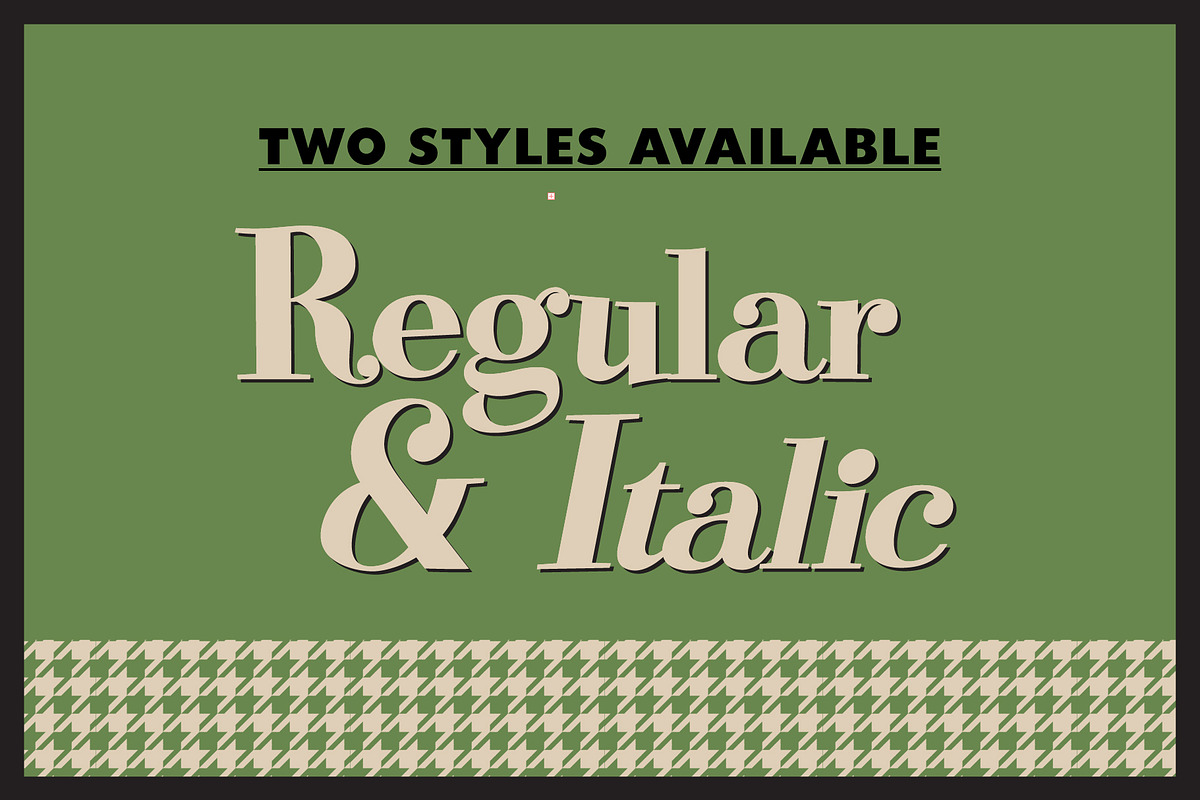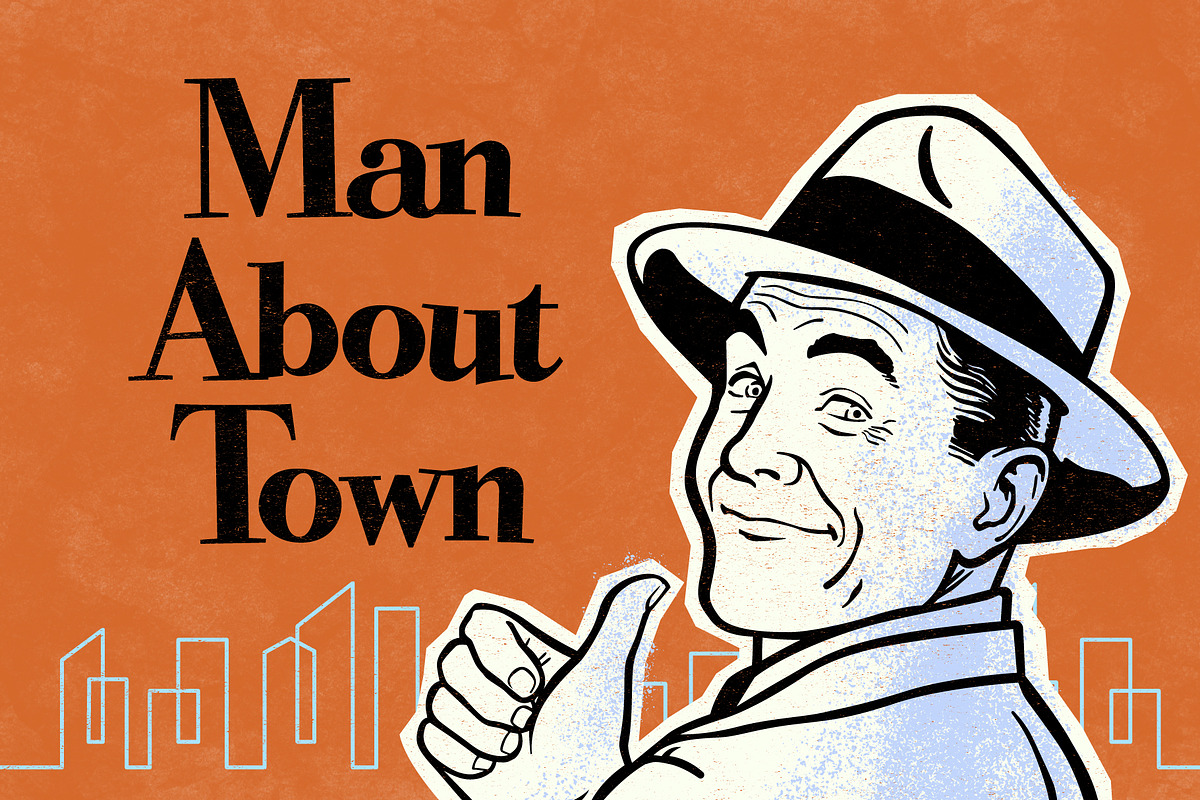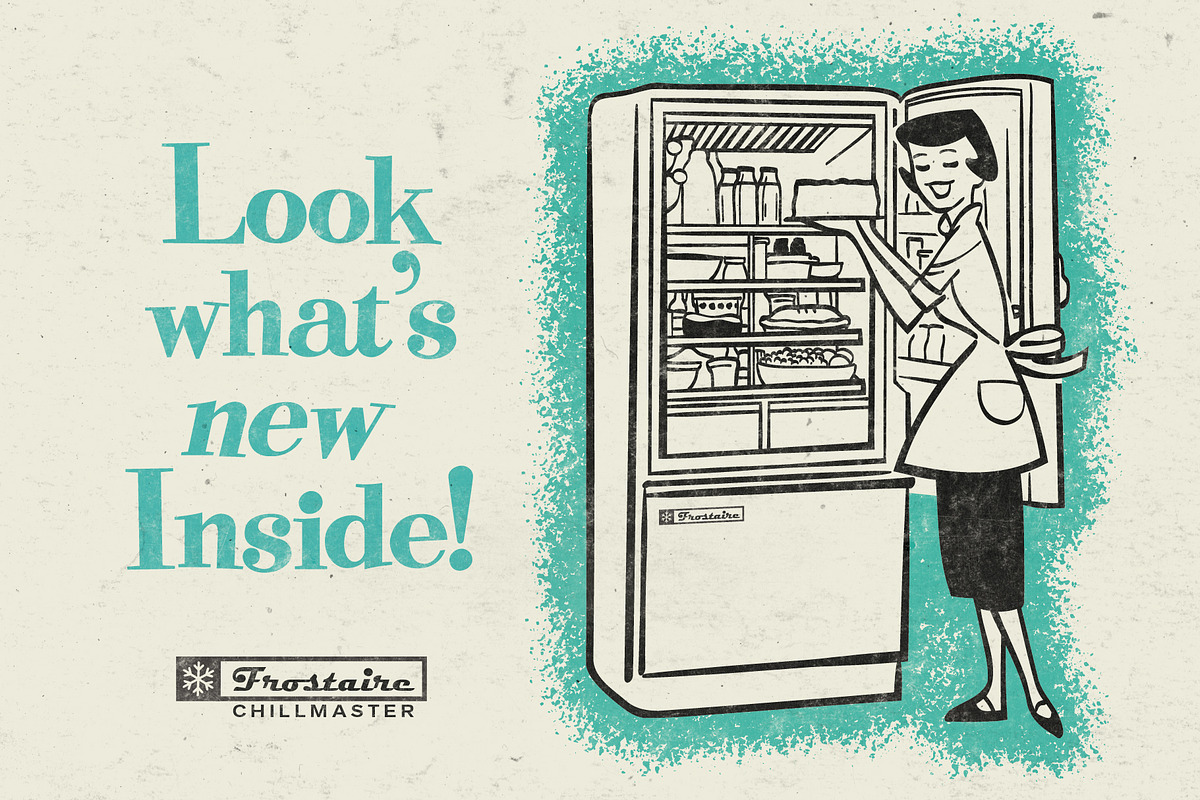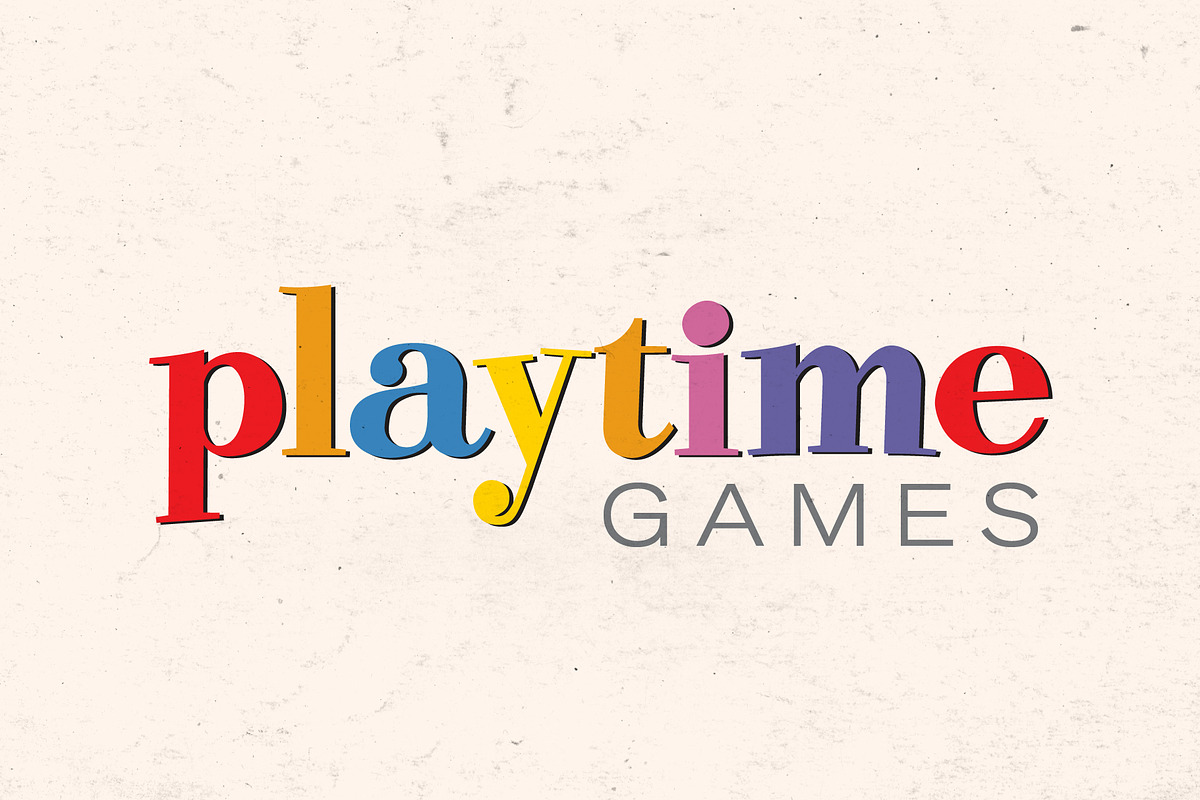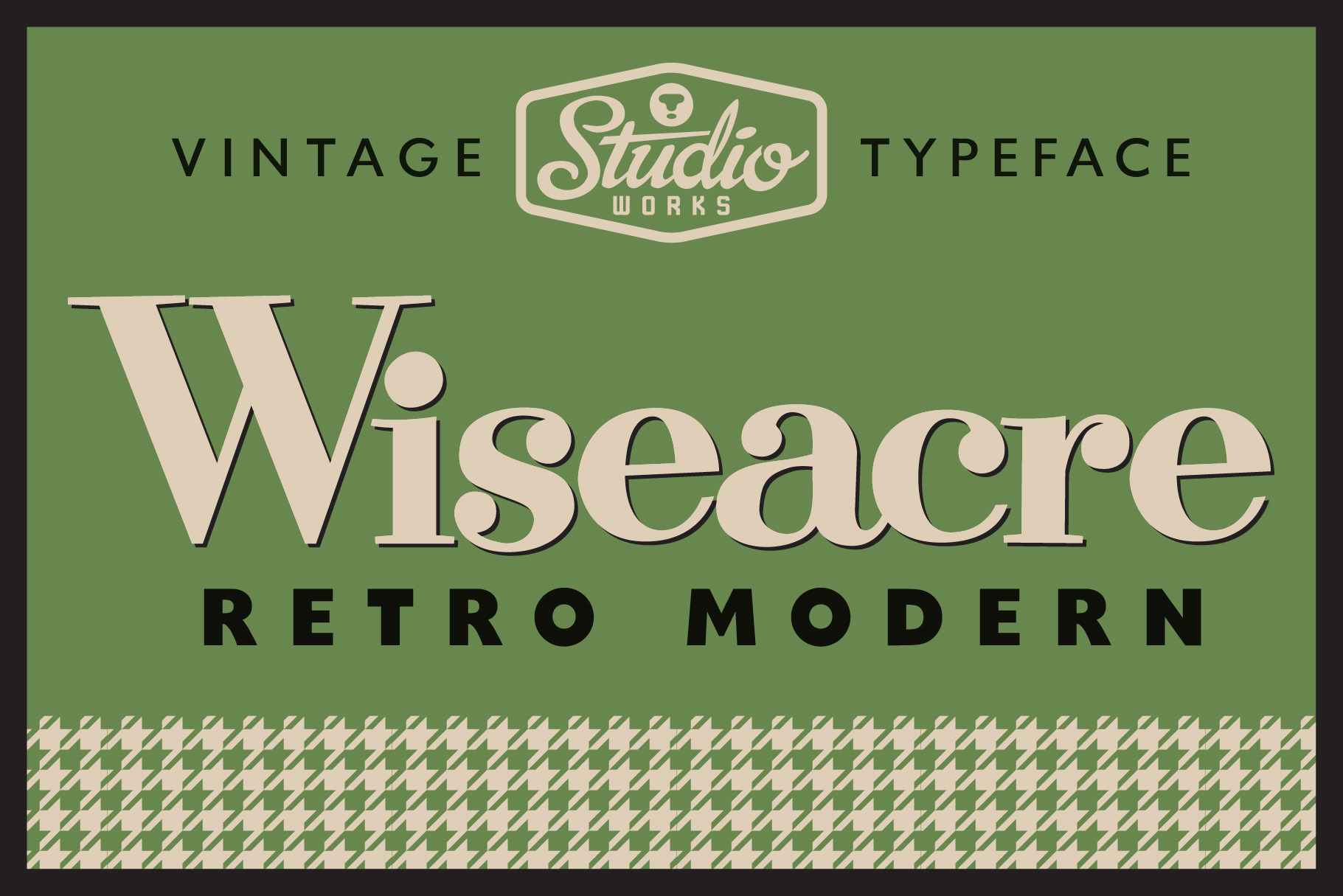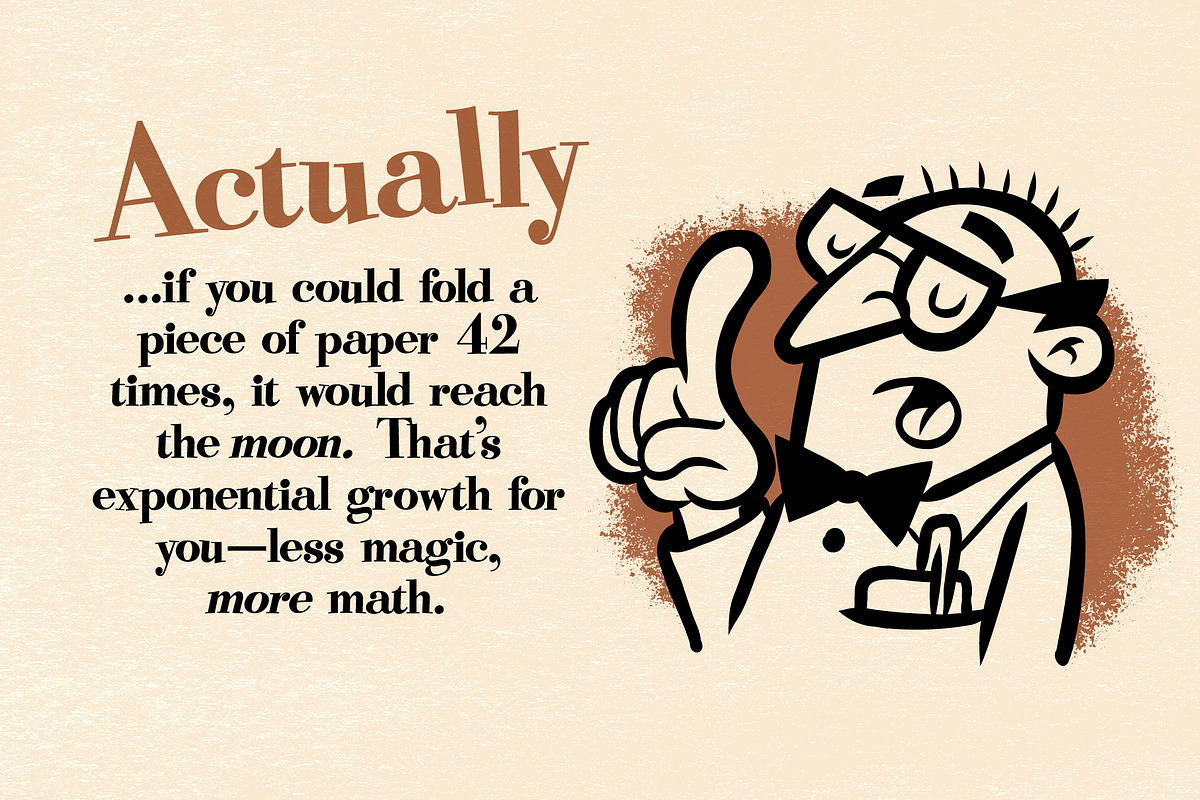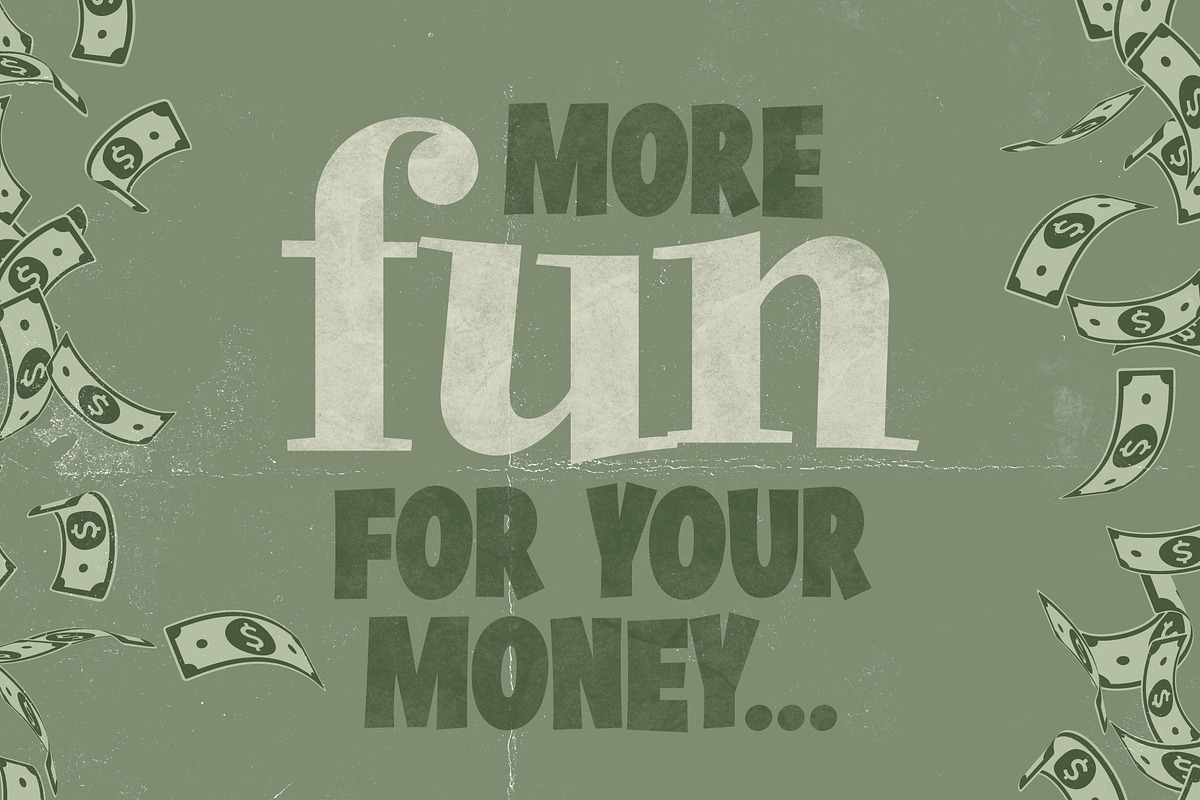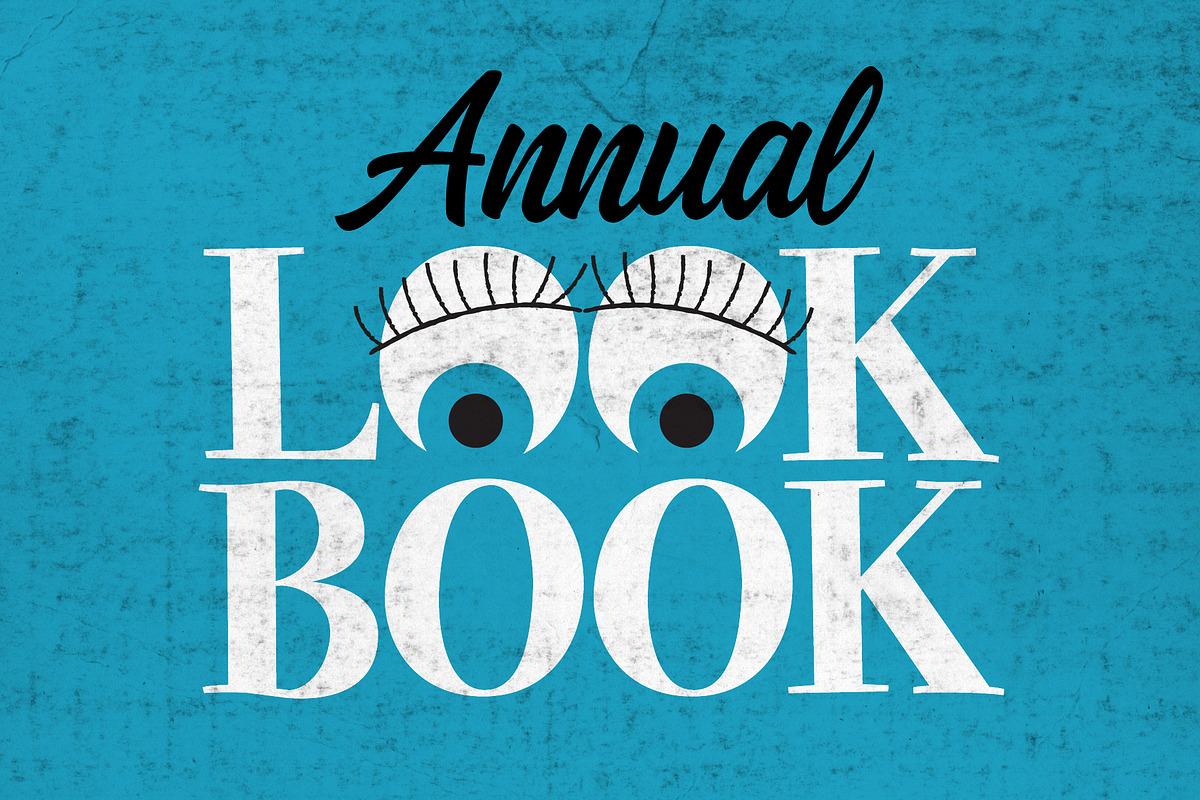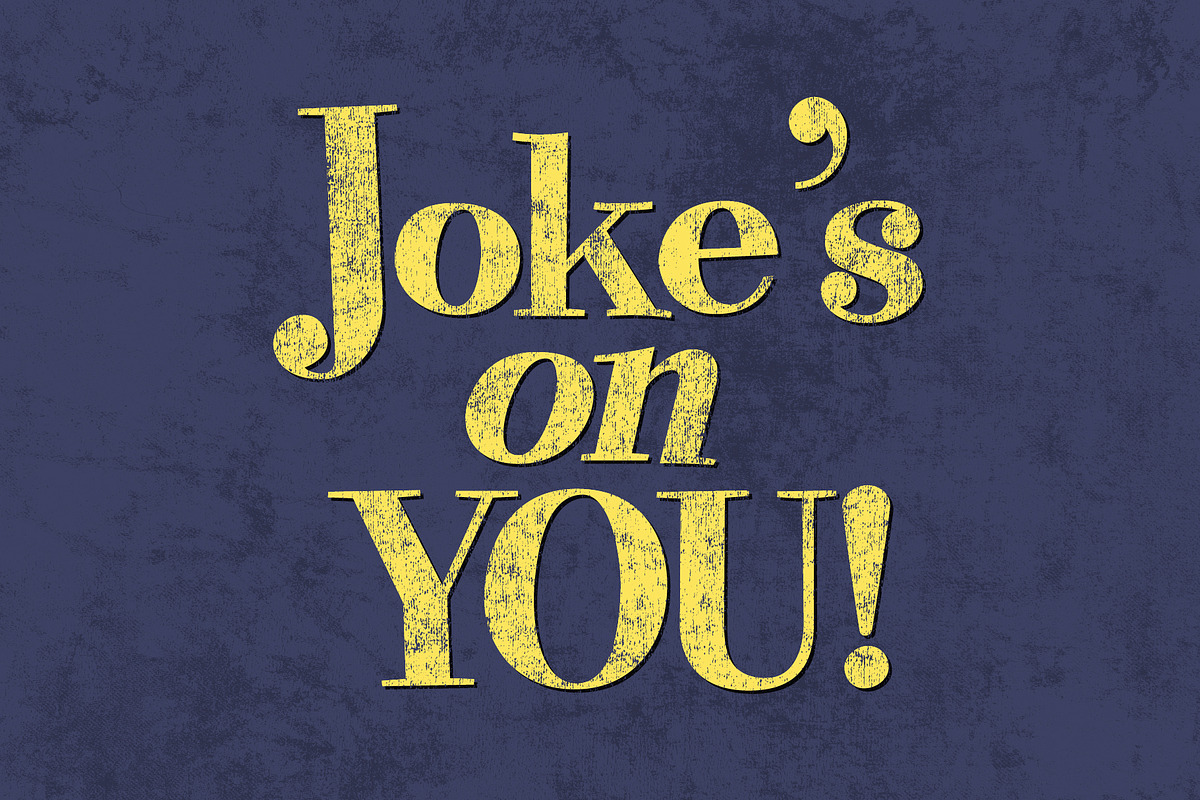
Wiseacre | Retro Modern Font!
Meet •• W I S E A C R E •• — the Smartmouth of Midcentury Type from StudioWorks!
Wiseacre isn’t here to whisper. It’s here to pontificate. Inspired by the razor-sharp elegance of Modern serifs like Bodoni—but with a streak of self-deprecation and midcentury fun—this display typeface walks the line between sophistication and sass. Bold, refined, and just a little bit full of it. Whether you’re designing vintage packaging, editorial spreads, cocktail menus, or a brand with big retro energy, Wiseacre delivers that just-right balance of high-contrast drama and stylish charisma. Every character has a twinkle in its eye and a point to prove. Perfect for throwback logos, eye-catching posters, retro packaging or crisp editorial layouts.
Wiseacre features:
- Upper (A-Z) and lower case (a-z) characters
- Numbers (0-9)
- Standard punctuation and glyphs
- Regular and Italic character sets
Wiseacre doesn’t just talk—it lectures with style.